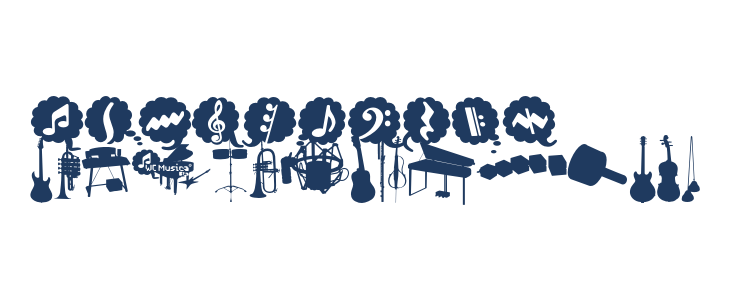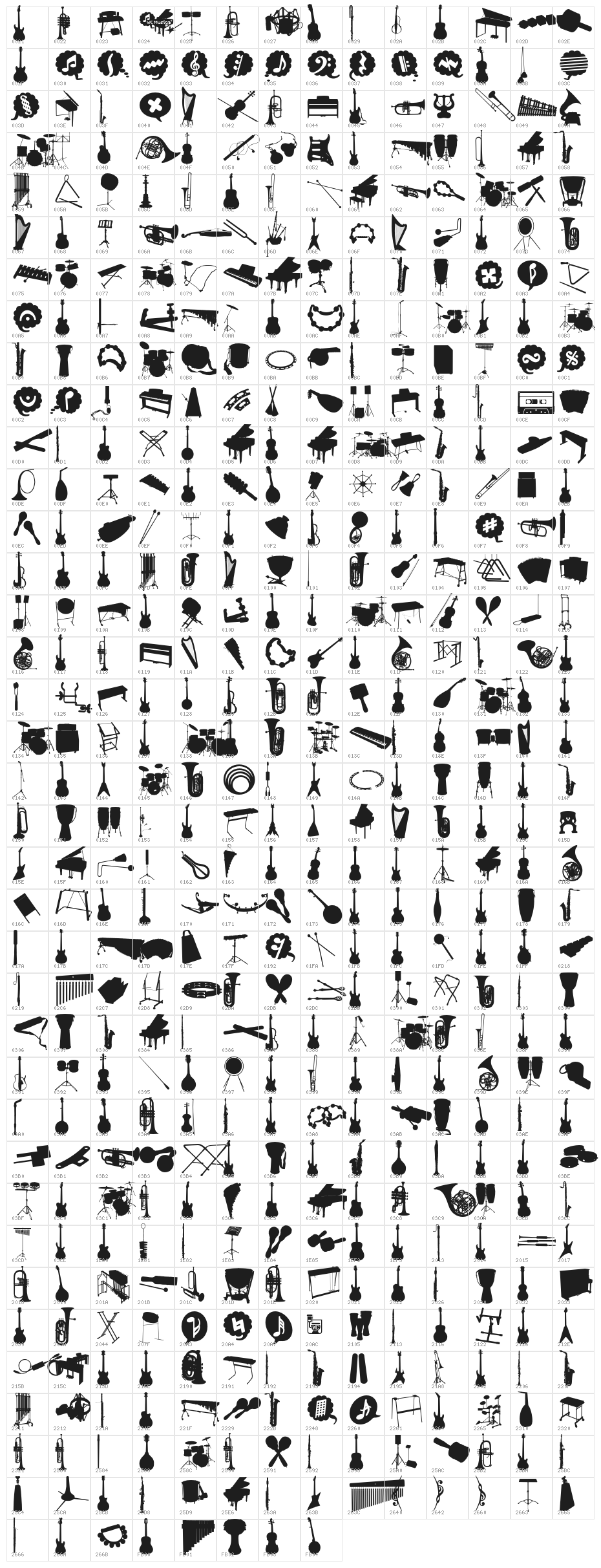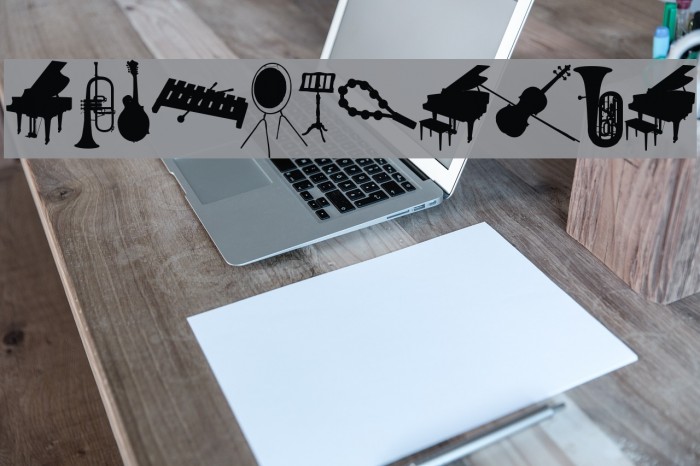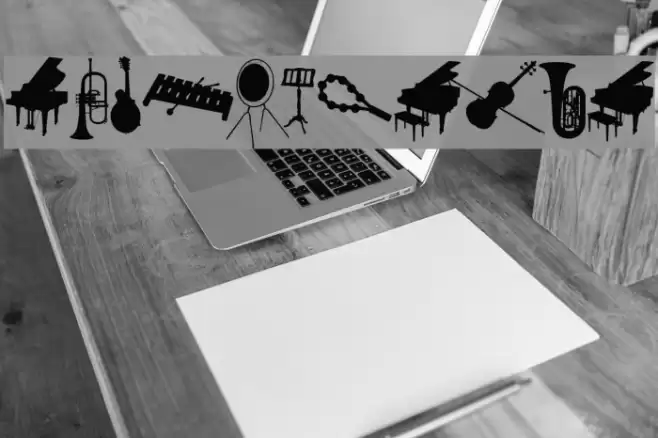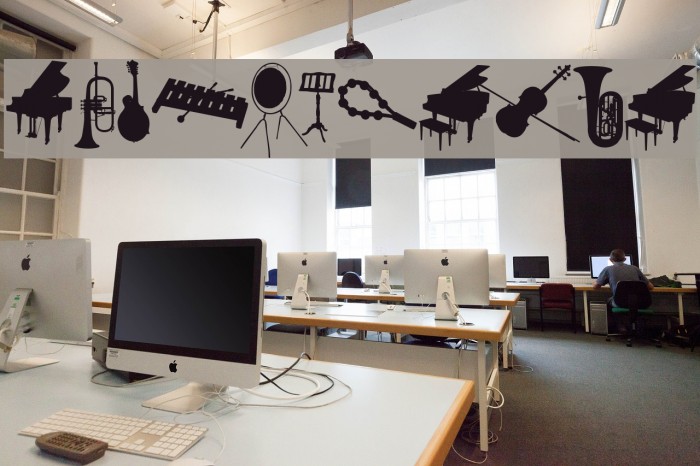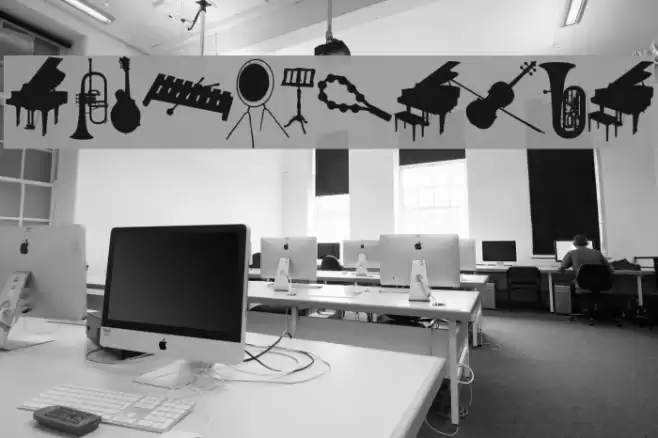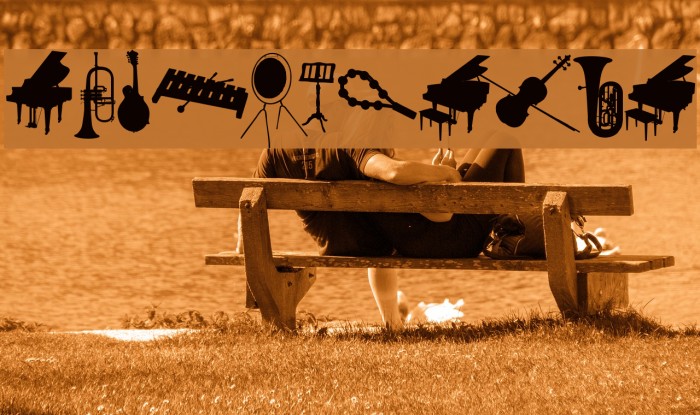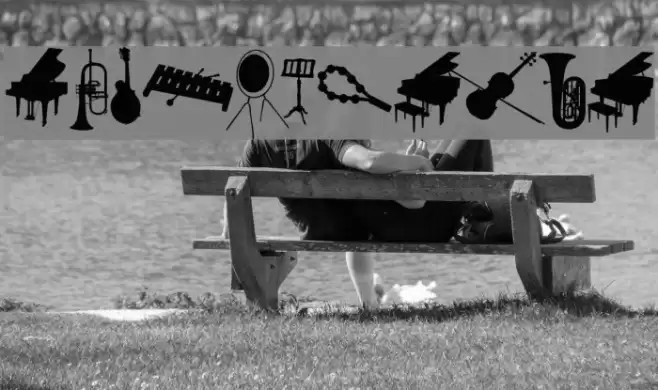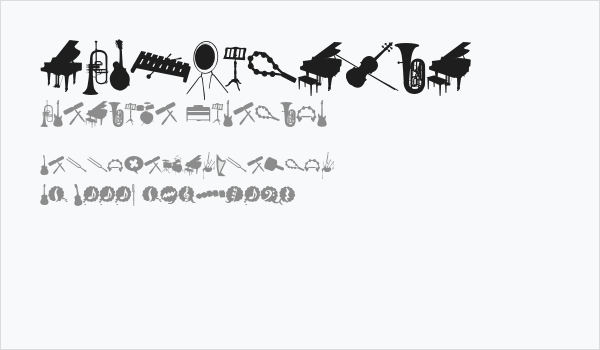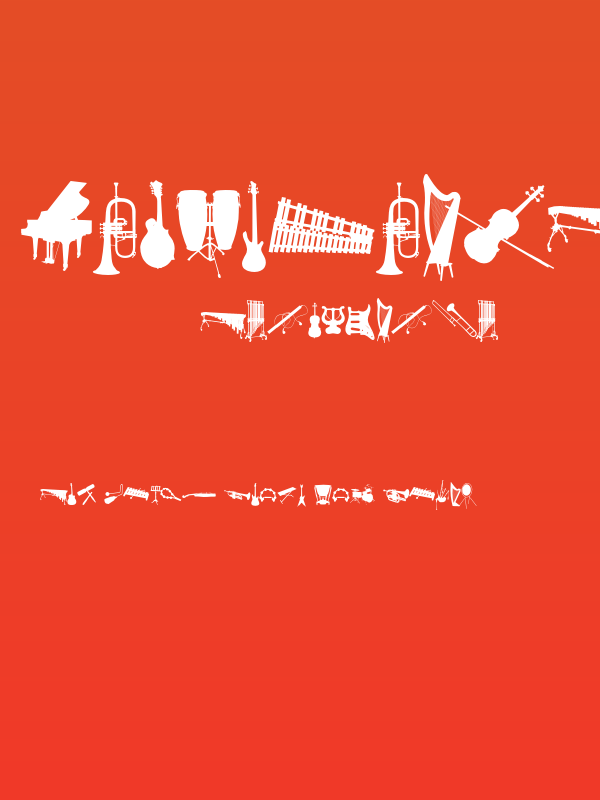
WCMusicaBta Font
WCMusicaBta Description
A decorative dingbat font featuring a wide variety of musical instrument silhouettes and music-themed icons, including guitars, drums, pianos, harps, and musical notes, rendered in bold black shapes with playful and detailed outlines.
| Overall Style | Decorative, Playful, Thematic |
| Use Case | Logos, Posters, Educational graphics, Themed decor |
| Proposed Projects | Music event posters, educational materials, music school branding, themed invitations, album art, and creative graphic design projects. |